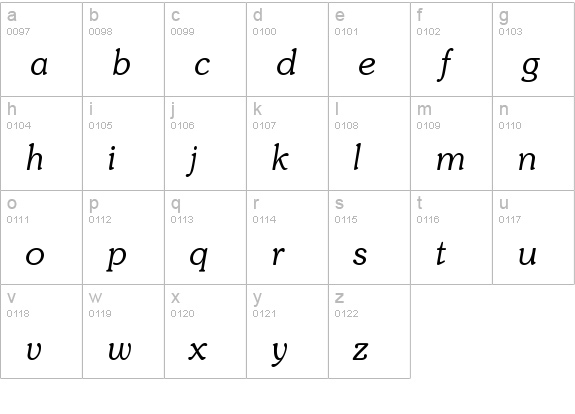
SouvenirEF-LightItalic Font Details
Introducing SouvenirEF-LightItalic, a captivating and elegant font that exudes a sense of sophistication and charm. With its delicate curves and slanted letters, this typeface is perfect for adding a touch of grace to any project. Designed with meticulous attention to detail, SouvenirEF-LightItalic effortlessly combines classic elements with a modern twist. Its slender and graceful strokes create a harmonious balance that is both pleasing to the eye and easy to read. This font holds the unique quality of being able to effortlessly convey a wide range of emotions. Whether you’re aiming for a romantic and dreamy feel or a refined and polished look, SouvenirEF-LightItalic will flawlessly capture the essence of your message. The best part? SouvenirEF-LightItalic is free! That's right, this remarkable font can be freely downloaded from FontsMarket.com. Now, you can enhance your designs without breaking the bank. Whether you're a professional designer, a student working on a project, or simply someone who appreciates the beauty of typography, SouvenirEF-LightItalic is a must-have addition to your font collection. Its versatility, elegance, and accessibility make it the perfect choice for a wide range of applications, from branding and logo design to invitations and personal projects. So why wait? Dive into the world of SouvenirEF-LightItalic and let your creativity soar. Download this mesmerizing font for free at FontsMarket.com and unlock the possibilities of creating stunning and impactful designs.